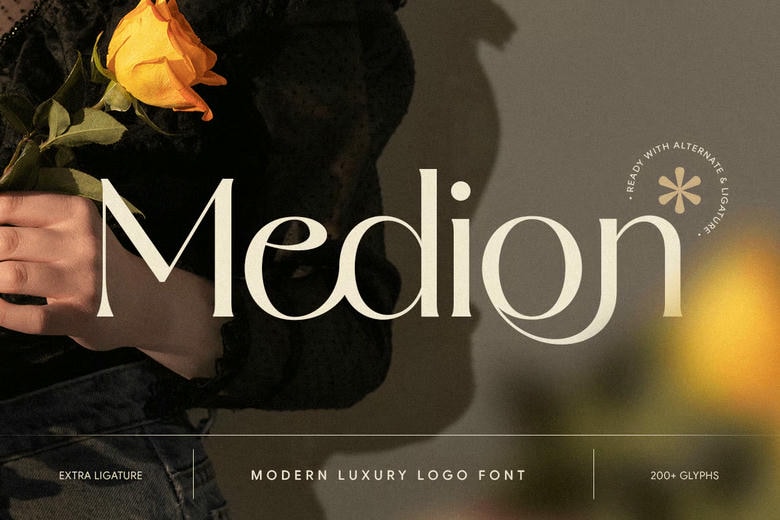
Medion Font
Medion is a modern luxury logo font that is capable of providing the perception of elegance, readability, and sophistication. Medion is ideal with the luxury logos, fashion brands, beauty products, editorials, packaging, and high-end visual identities with its clean letterforms, elegant proportions, and sophisticated style.
Combining the current trends of minimalism and classical beauty, Medion produces a powerful yet stylish impression in both print designs and digital designs. It has a refined nature and suits well to a boutique brand, jewellery, lifestyle business, fashion house, and other designers who need a smooth luxury logo font that would help to boost brand image.
Medion Serif Font